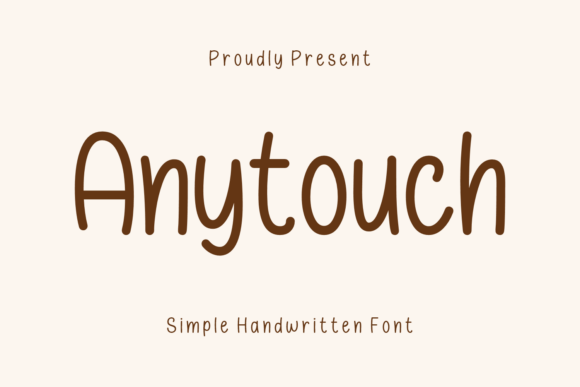
Discover the Charm of Anytouch Font: A Creative Game-Changer
I’ll never forget the moment I stumbled upon the perfect font for a whimsical craft project I was working on. I had been scouring the internet for hours, trying to find a typeface that captured the playful essence of my design. That’s when I discovered Anytouch – an enchantingly cute handwritten font that breathed life into my creative endeavor. In this article, I’ll share my experience with Anytouch, its unique features, and how you can make the most of it in your own projects.
A Personal Review of Anytouch Font
What I Love About Anytouch ✨
- ✅ The authentic, personal touch it brings to any design
- ✅ Its playful charm, perfect for school-related projects and assignments
- ✅ The quaint, casual style it offers as a t-shirt font
- ✅ Its versatility in digital content, making websites and blogs more inviting
While Anytouch is an excellent font, there are a few things to keep in mind:
- 🤔 It may not be suitable for formal or professional projects, as its playful nature might not align with the tone you’re aiming for.
- ⚠️ Some users have reported issues with kerning, but this can be easily adjusted in most design software.
The Story Behind Anytouch Font
Anytouch was designed with the intention of creating a font that felt personal and approachable. The designer aimed to craft a typeface that would bring a sense of whimsy and playfulness to creative projects. Inspired by handwritten letters and notes, Anytouch embodies the charm of human touch in a digital world.
Q: Does Anytouch support OpenType features?
A: Yes, Anytouch supports OpenType features, including ligatures and stylistic alternates, which can add more personality to your text.